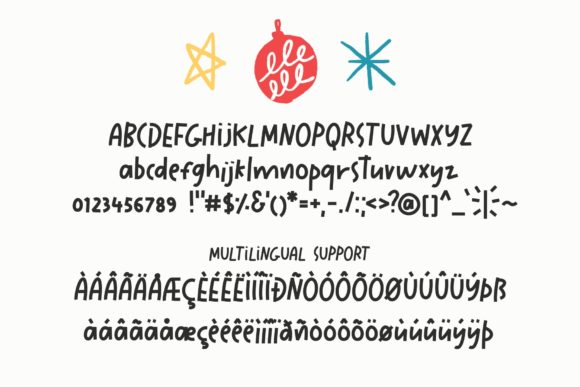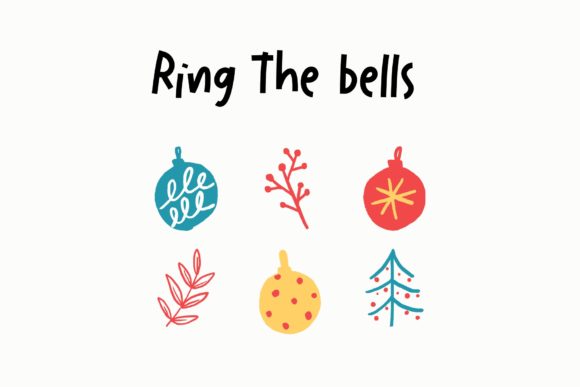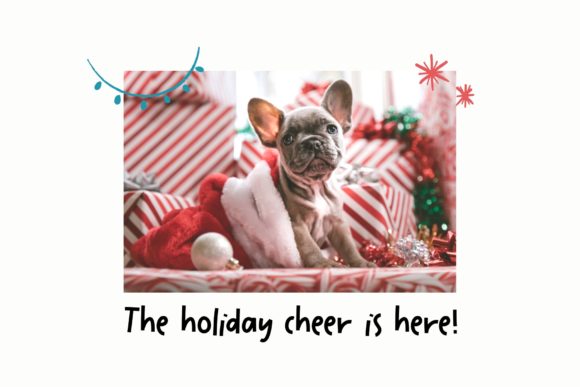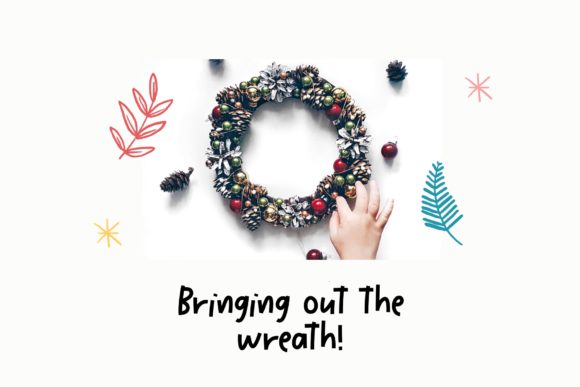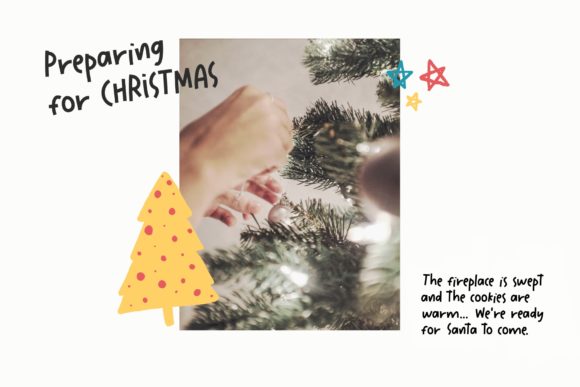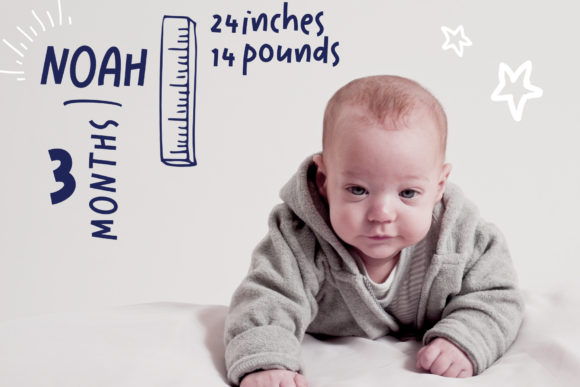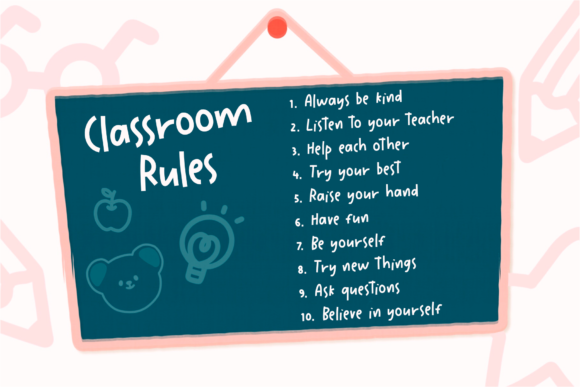
Christmas Fun Font
About Christmas Fun Font
Christmas Fun is a playful and friendly handwritten font. You can use this font in various projects such as greeting cards, invitations, stickers, posts, decorations and much more!